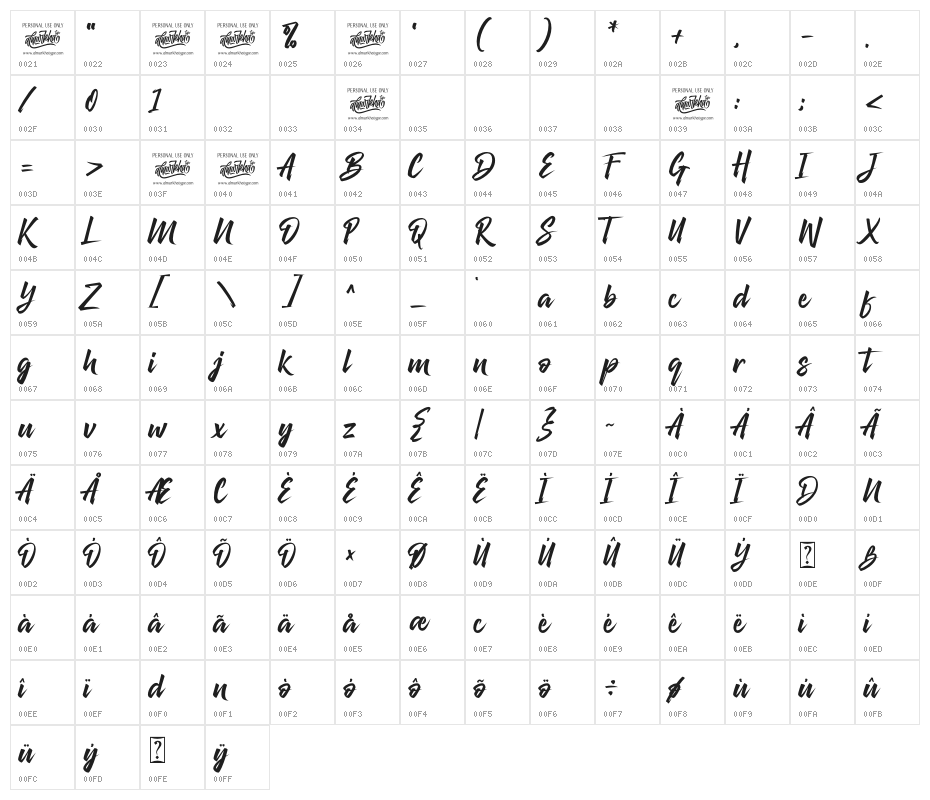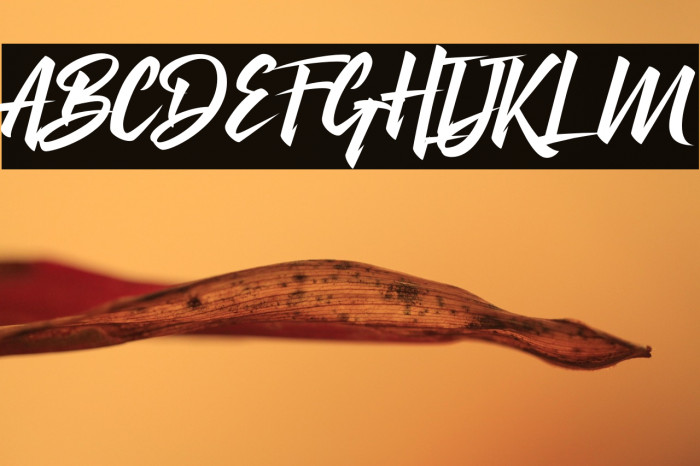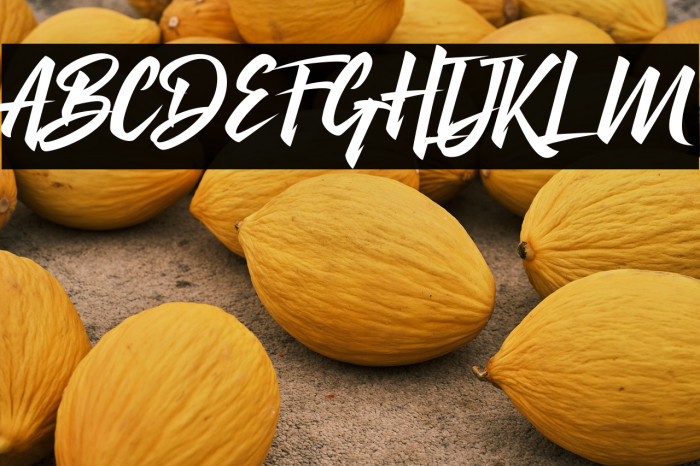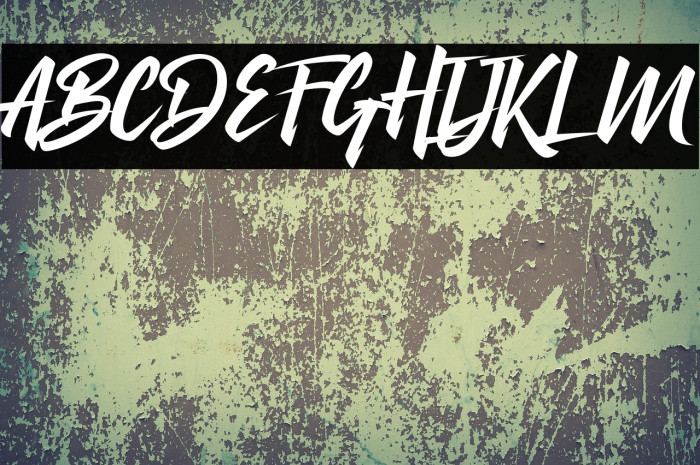
The Blackheads Font
The Blackheads Description
This font features a bold and dynamic script style with a modern flair. The letters are characterized by their fluid, sweeping strokes and a sense of movement, giving it a lively and energetic appearance. The uppercase letters are particularly striking, with exaggerated curves and a sense of rhythm that makes them stand out. The lowercase letters maintain the same fluidity, creating a cohesive look across the alphabet. The numbers and special characters are designed with the same attention to detail, ensuring consistency throughout. This font is ideal for projects that require a personal touch or a sense of elegance and creativity.
| Proposed Projects | Ideal for branding, logos, invitations, and creative projects that require a personal touch. |